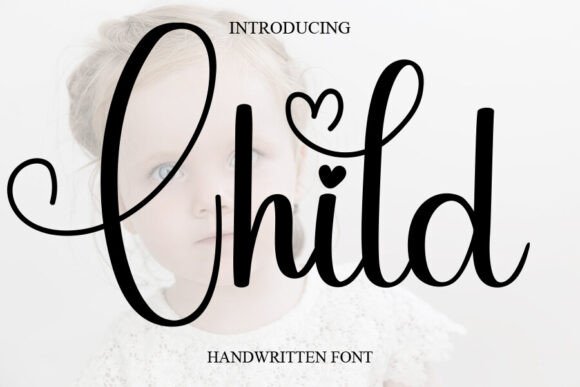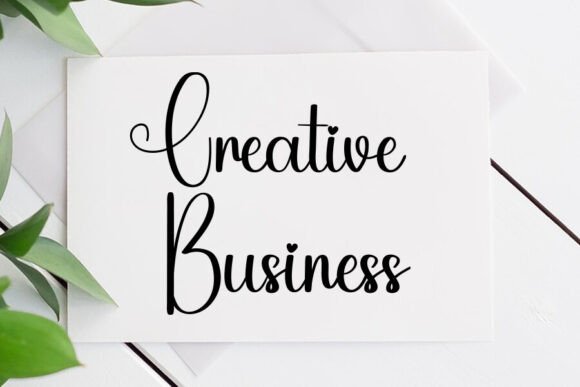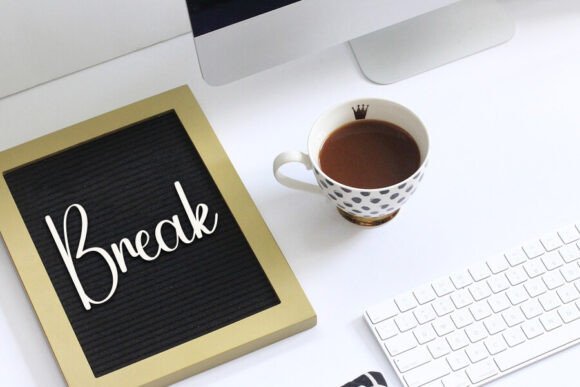
Child Font: A Cute Handwritten Font for Playful Designs!
About the Child Font
Welcome to the world of Child Font, a typeface that will inspire your next great project. Child is a lovely and timeless handwritten font. It is the best choice for creating eye catching logos, branding and quotes. Every letter has a unique and beautiful touch, which will make your design come alive!
Child Font Usage Examples